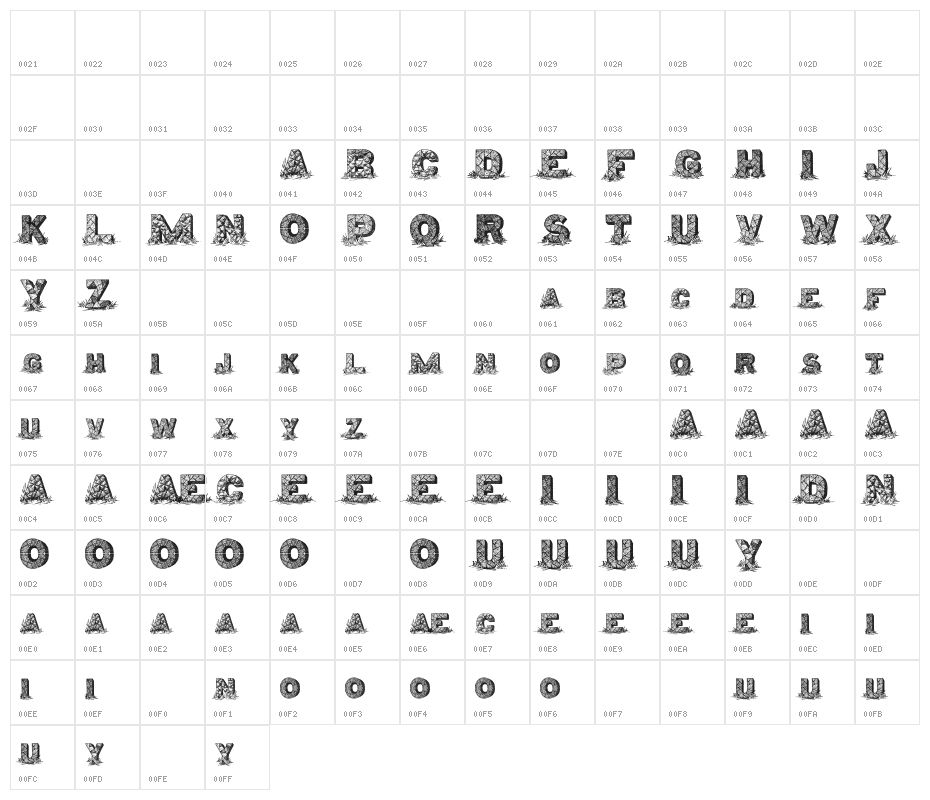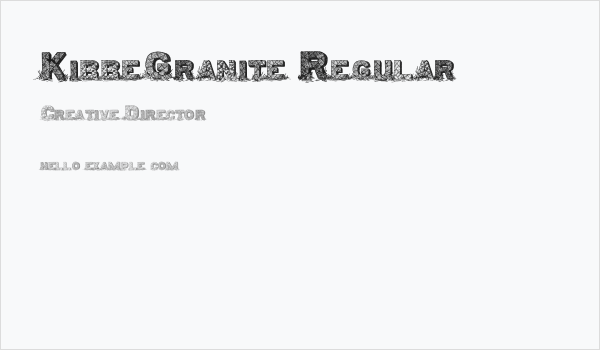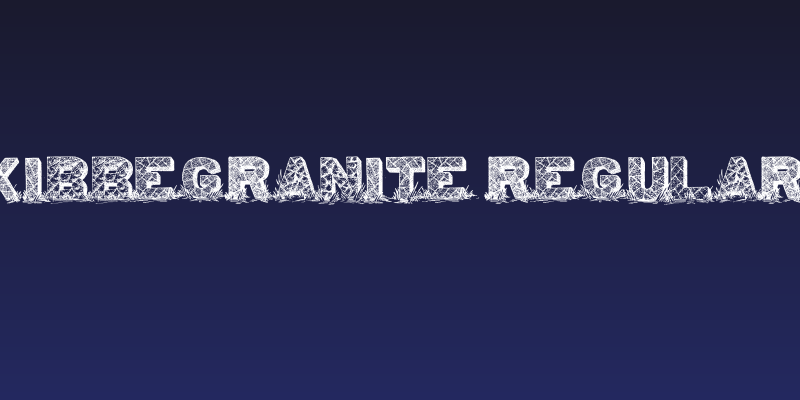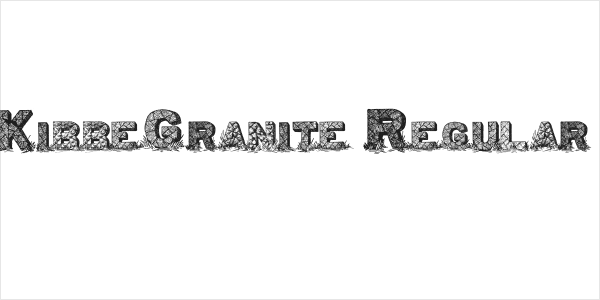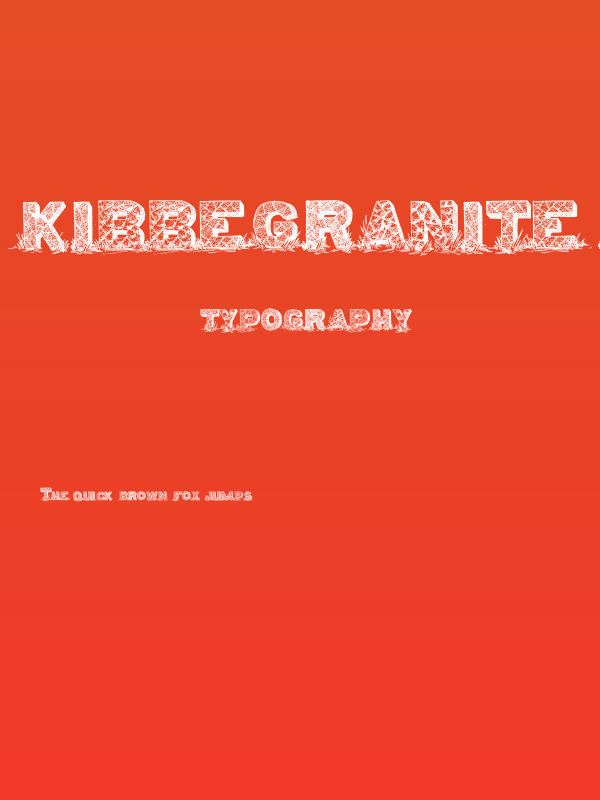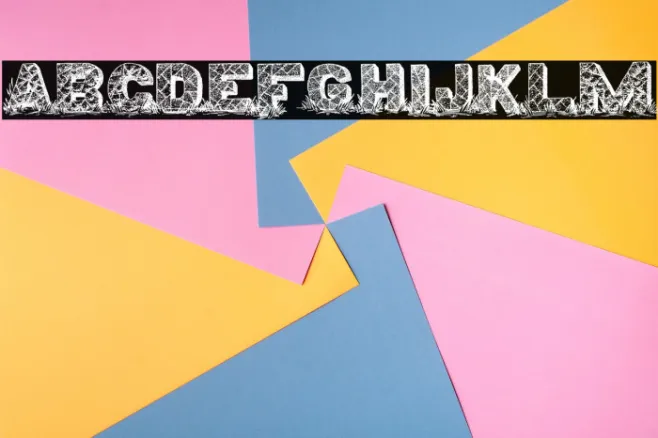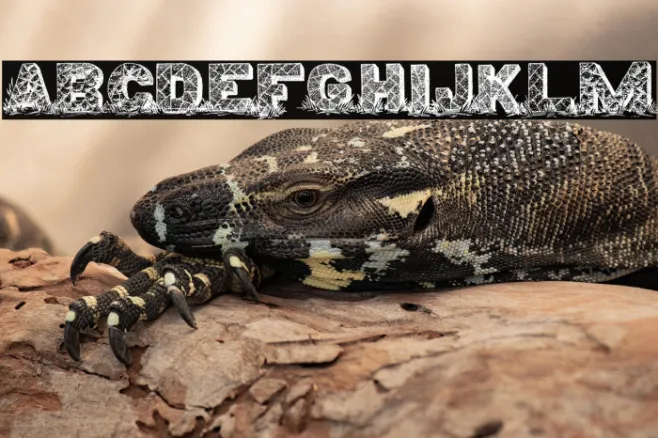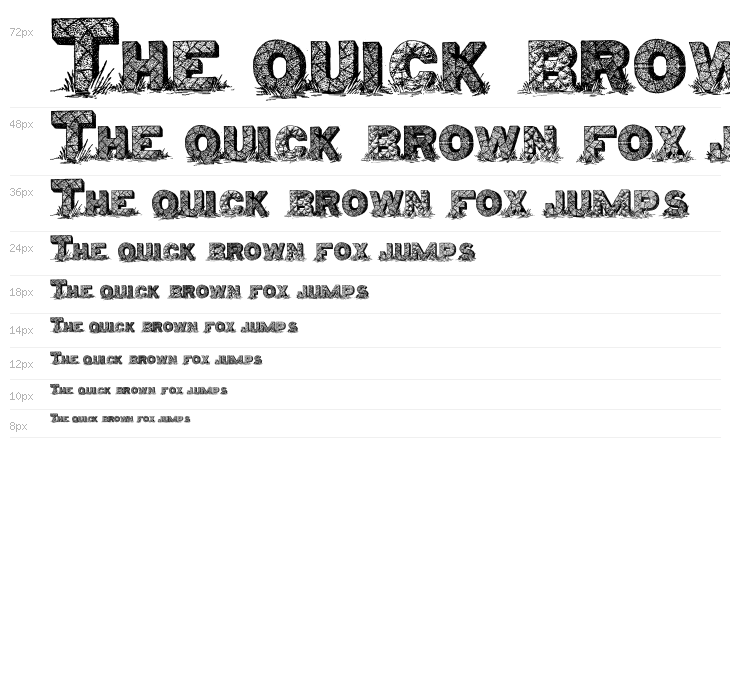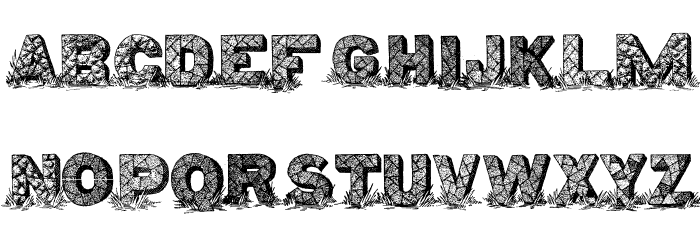
KibbeGranite-Regular Font
KibbeGranite-Regular Description
This font features a bold and decorative style, with each letter intricately designed to resemble a textured, stone-like surface. The characters are adorned with detailed patterns that give them a rugged and natural appearance, reminiscent of granite or rock formations. The uppercase letters are particularly striking, with their bold presence and intricate detailing. The font's unique design makes it stand out, offering a visually engaging experience that captures attention. Its artistic and elaborate style is perfect for projects that require a strong visual impact.
| Use Case | Logos, Posters, Artistic projects |
| Proposed Projects | Ideal for use in branding, posters, and artistic projects where a strong, decorative impact is desired. |